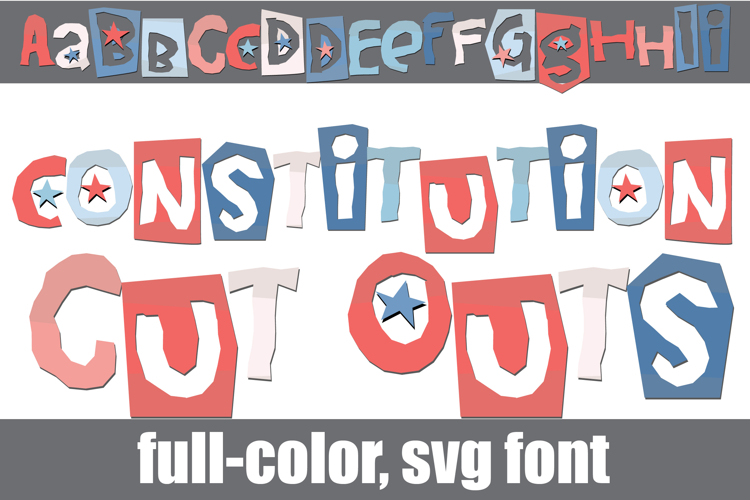
Constitutional Cut Outs Too Color Font
This full-color, blocky style font is in a pastel patriotic color palette. There is an alt case of additional colors of each letter that you can access through your system's character map.